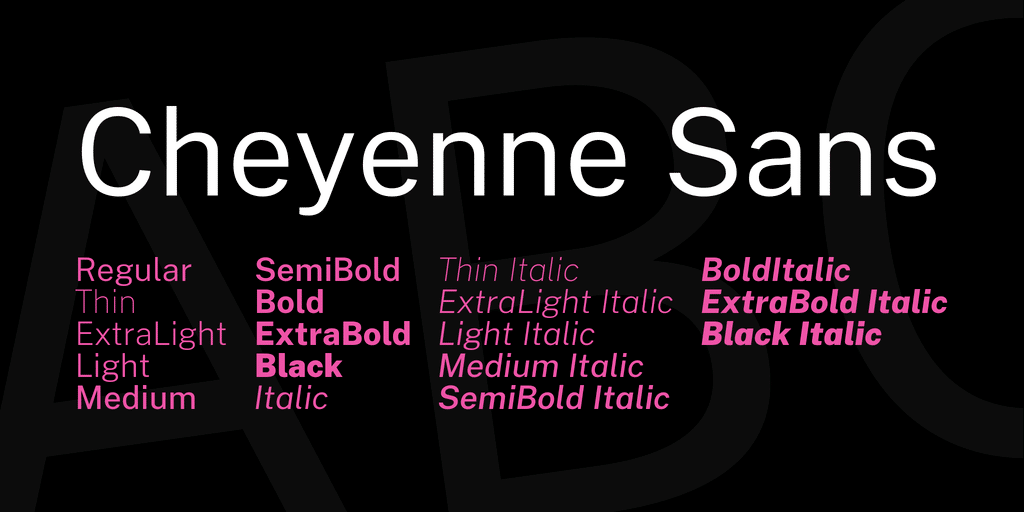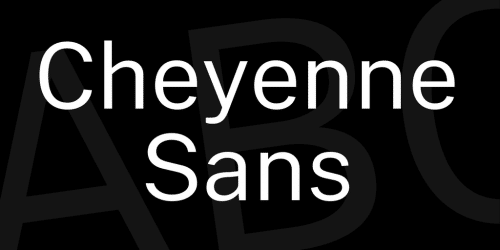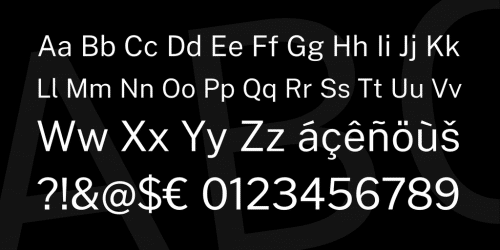
Cheyenne Sans is a neo-grotesk sans-serif font developed from United Sans and Libre Franklin fonts. The first modifications are true italic forms for ‘a’ and ‘f’, and a more matching italic.
The following language blocks are fully supported: Afrikaans, Baltic, Basic Latin, Catalan, Central European, Dutch, Esperanto, Euro, Igbo Onwu, Romanian, Turkish, and Western European.